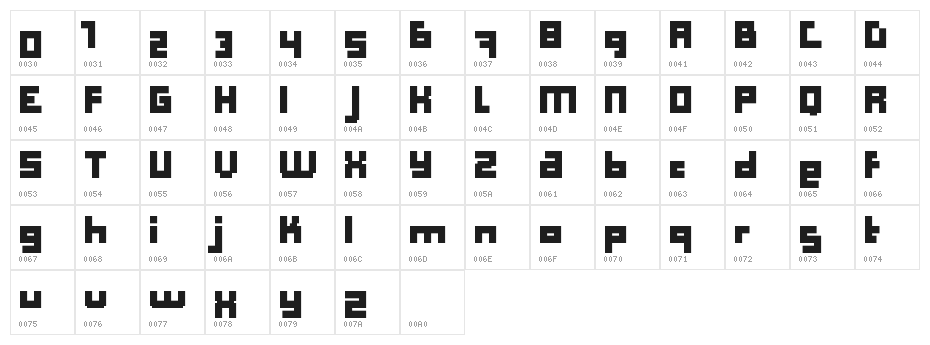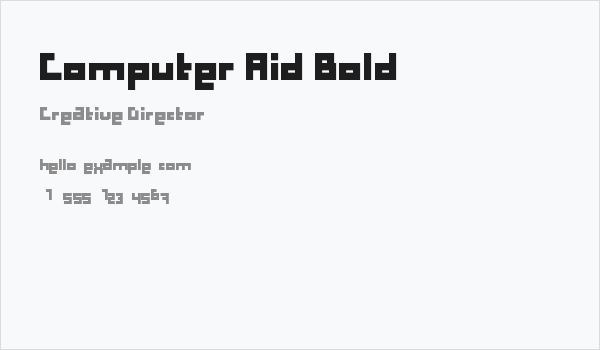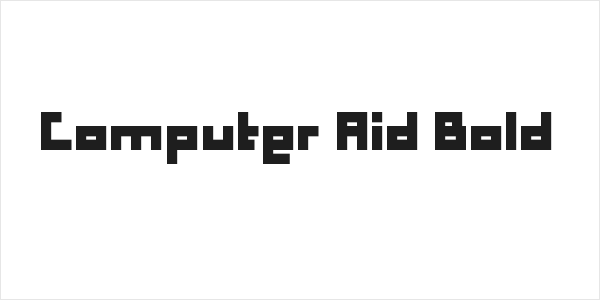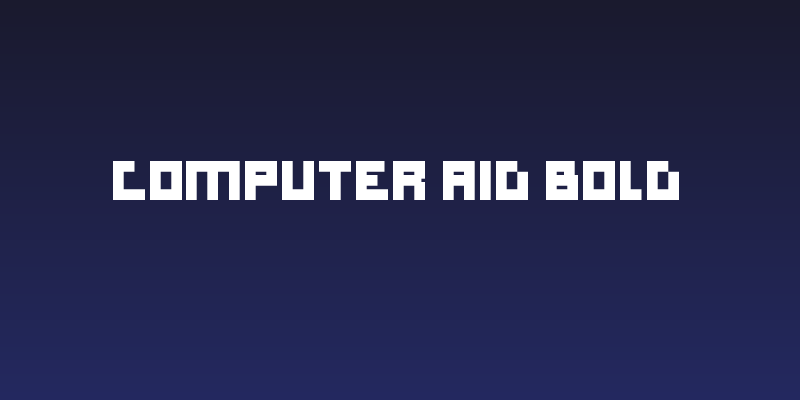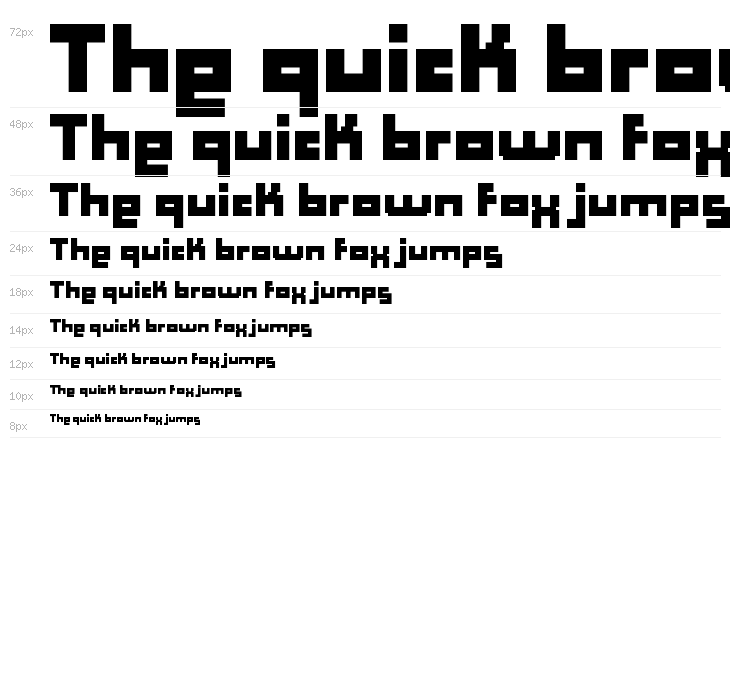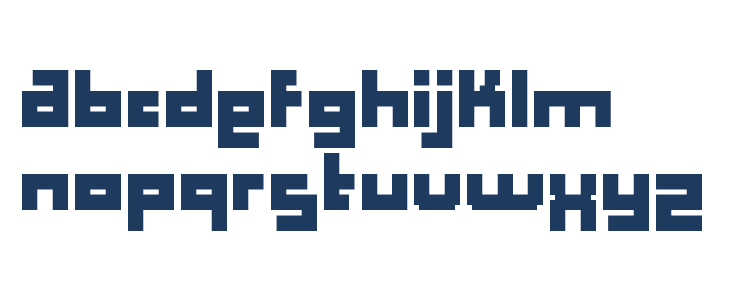
Computer Aid Bold Font
Computer Aid Bold Description
This font features a bold, geometric design with a distinctly digital and futuristic aesthetic. The characters are constructed with blocky, pixel-like shapes, giving it a strong, modern appearance. The uppercase and lowercase letters maintain a consistent width, creating a uniform and cohesive look. The numbers and special characters follow the same design principles, ensuring visual harmony across all glyphs. The font's boldness and geometric style make it highly legible and impactful, suitable for attention-grabbing headlines and digital-themed projects.
Proposed ProjectsIdeal for digital interfaces, video game graphics, tech-themed posters, and futuristic branding.